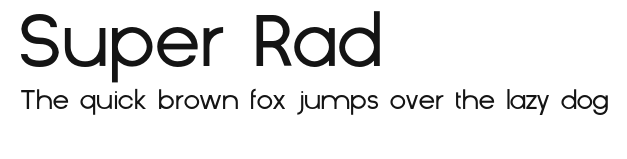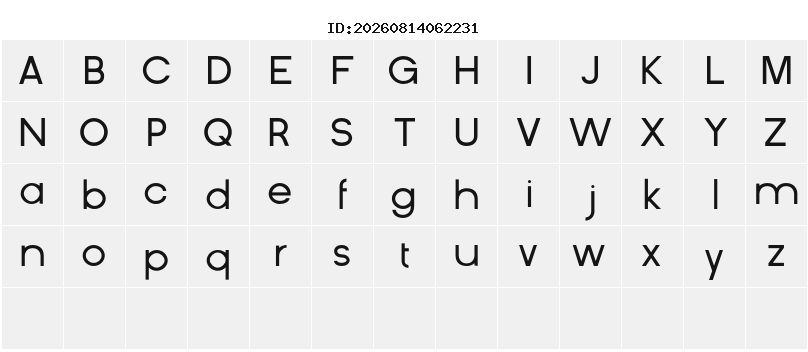
Super Rad.otf is a modern, elegant sans-serif font designed for ultimate readability and visual harmony. Perfect for branding, headlines, web design, and print materials.